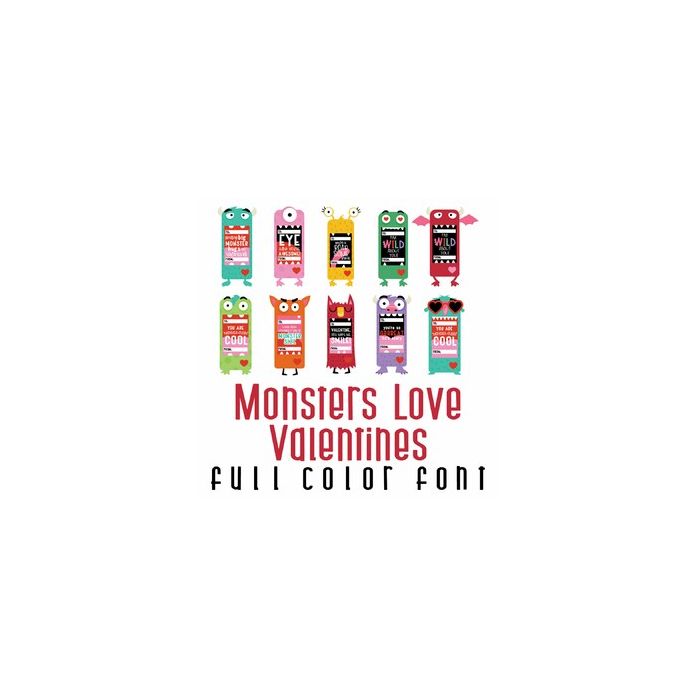
This adorable full-color doodlebat font features 26 fun foldable Monster Valentines. Perfect for cards, crafts, gifts, decor, scrapbook pages, planner stickers, and more!